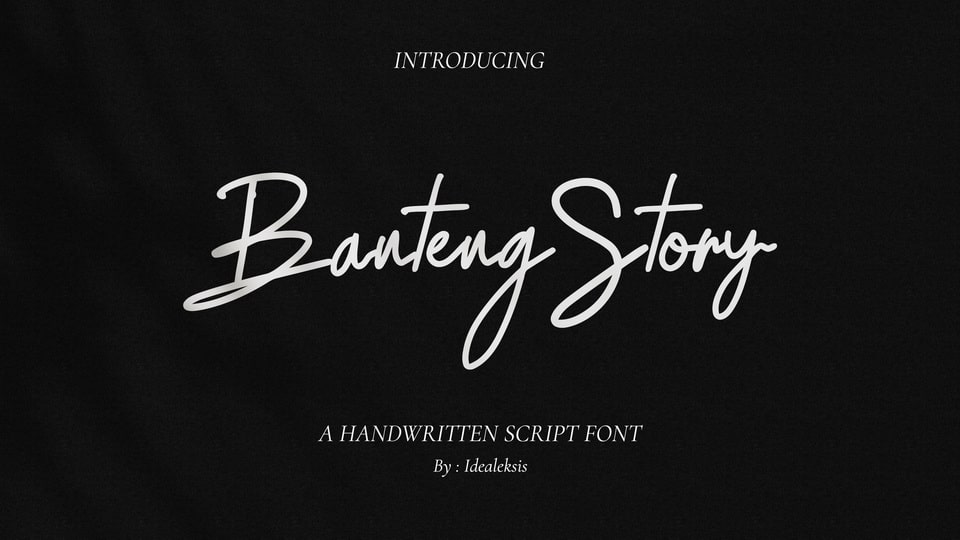
Banteng Story Font › Fontesk – Download Grátis
Download Banteng Story font, a casual signature-style handwritten font that adds a touch of personal charm and relaxed elegance to your designs. Banteng Story font features a laid-back and organic design, with each letter exuding a sense of natural movement.
Designer: Ideal Eksis